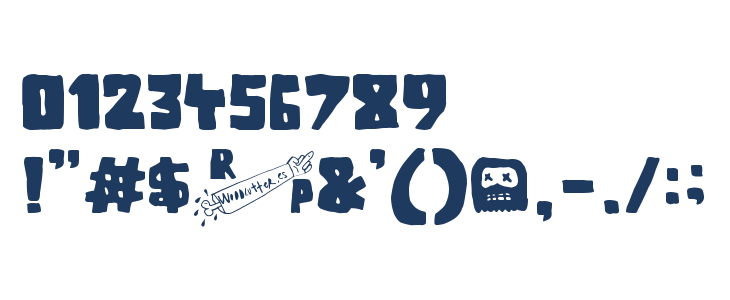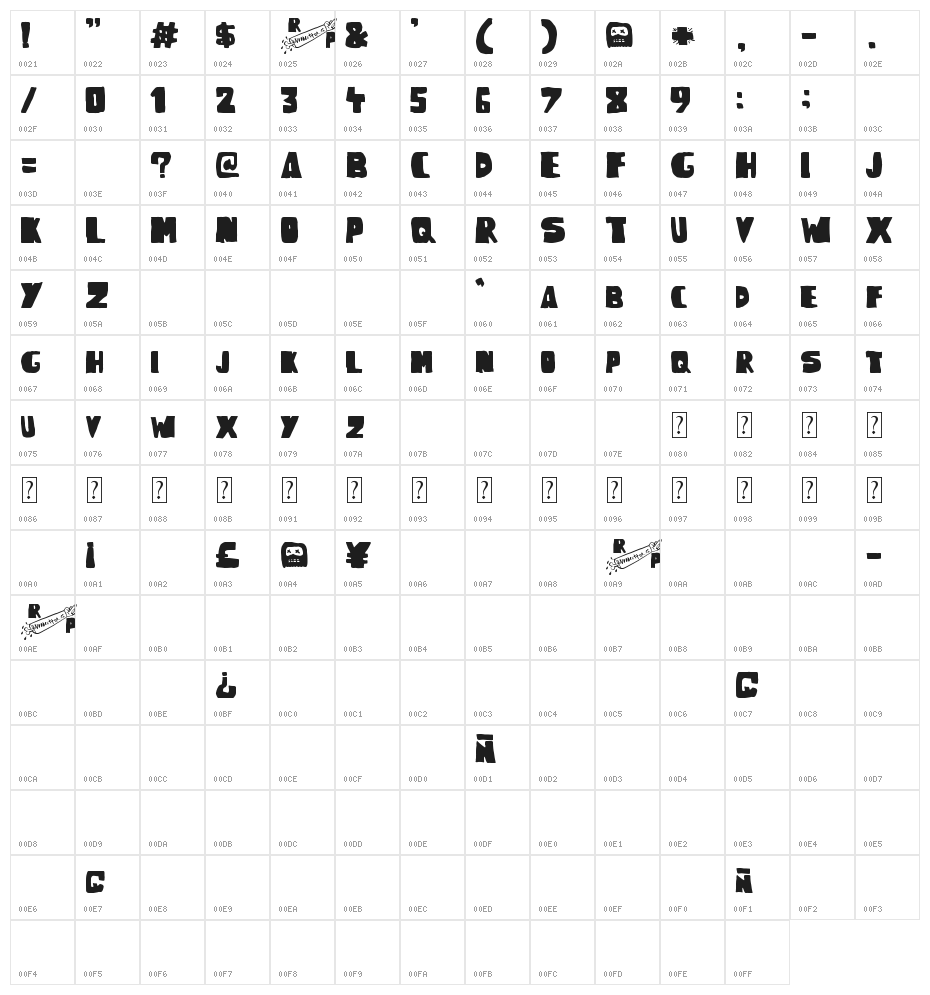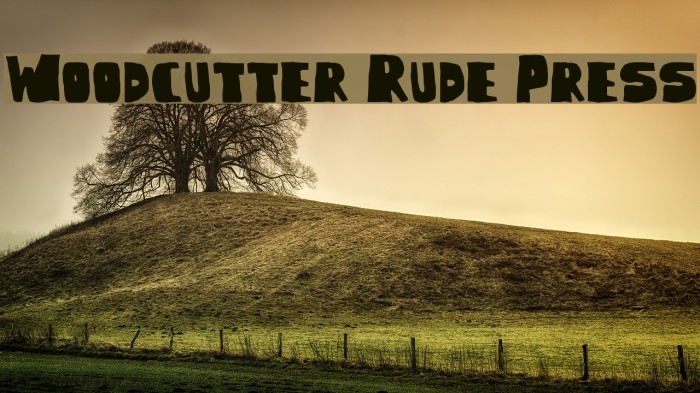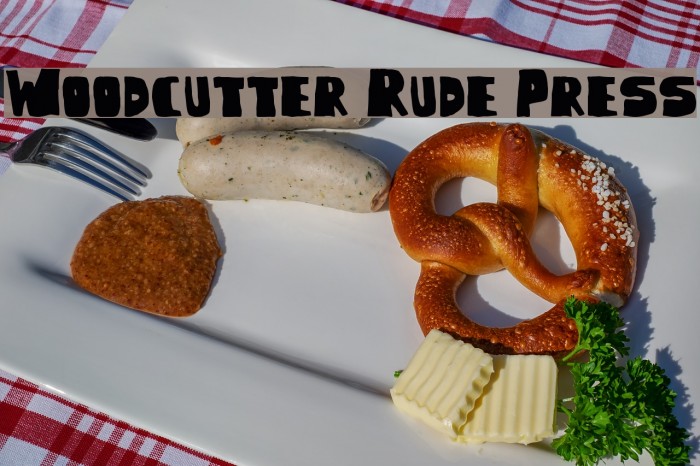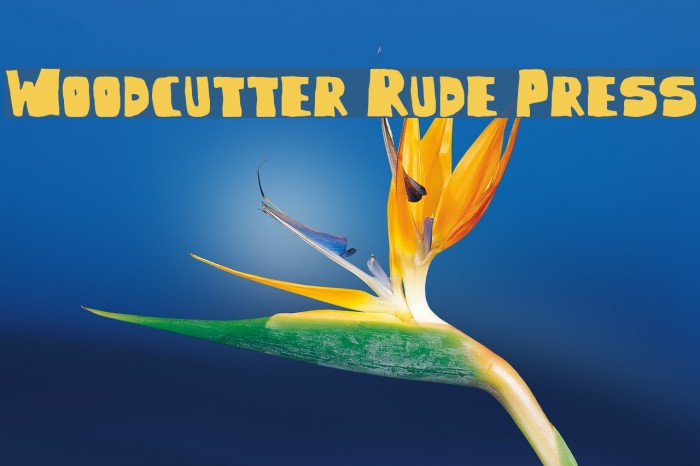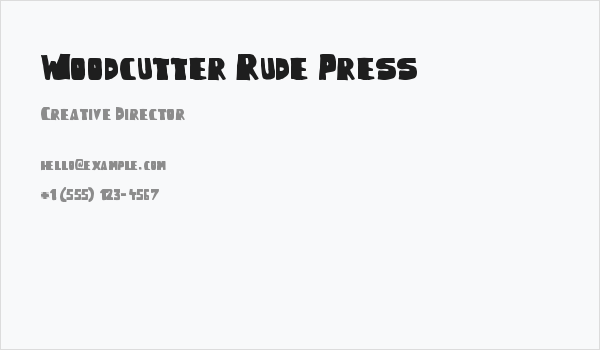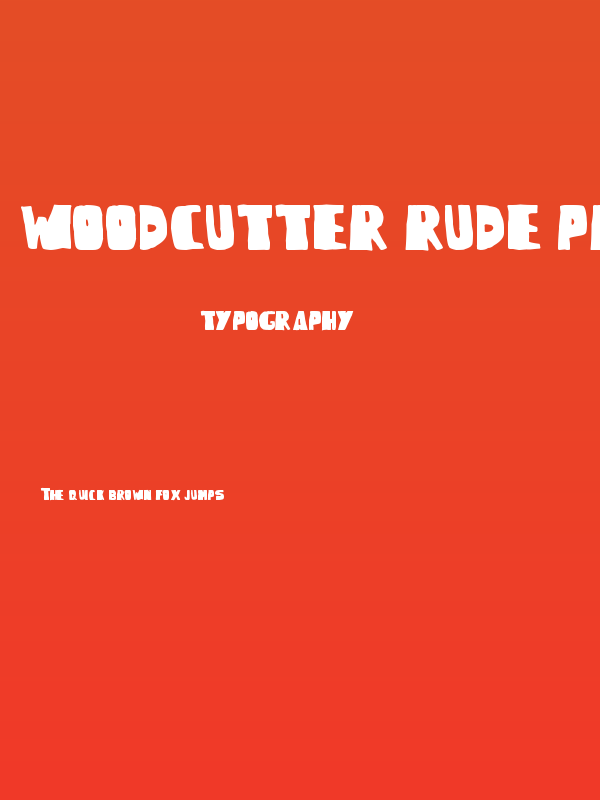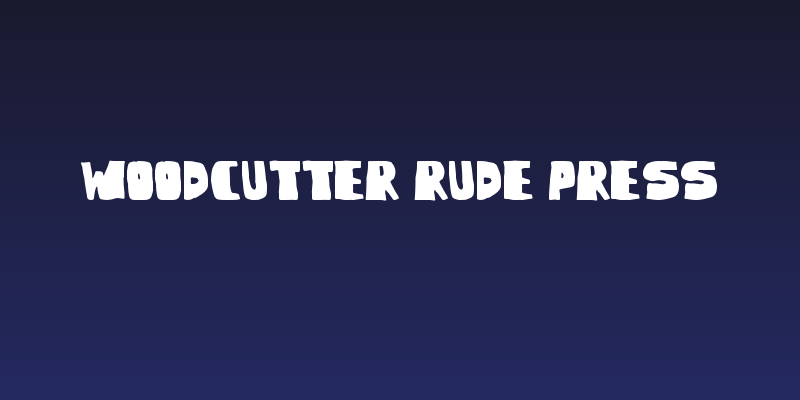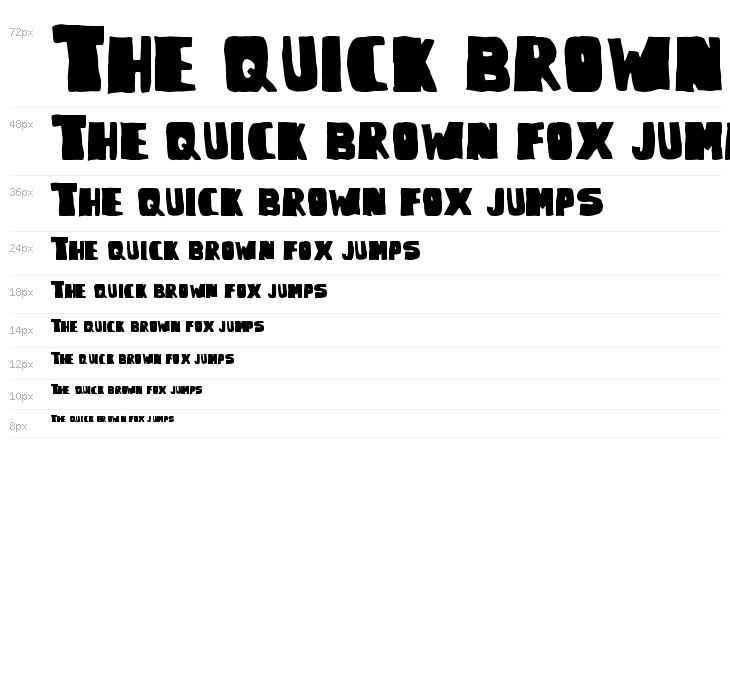
Woodcutter Rude Press Font
Woodcutter Rude Press Description
This font exhibits a bold and rugged style, characterized by its thick, uneven strokes and a hand-carved appearance. The letters have a distressed, almost graffiti-like quality, giving them a raw and edgy look. The uppercase and lowercase letters maintain a consistent weight, contributing to a cohesive yet dynamic visual impact. The numerals and special characters follow the same aesthetic, ensuring uniformity across all glyphs. This font's unique style is reminiscent of vintage woodcut prints, making it ideal for projects that require a bold, attention-grabbing typeface with a touch of nostalgia.
| Overall Style | Vintage, Decorative |
| Proposed Projects | Ideal for posters, album covers, branding for edgy or alternative products, and any design needing a bold, vintage touch. |